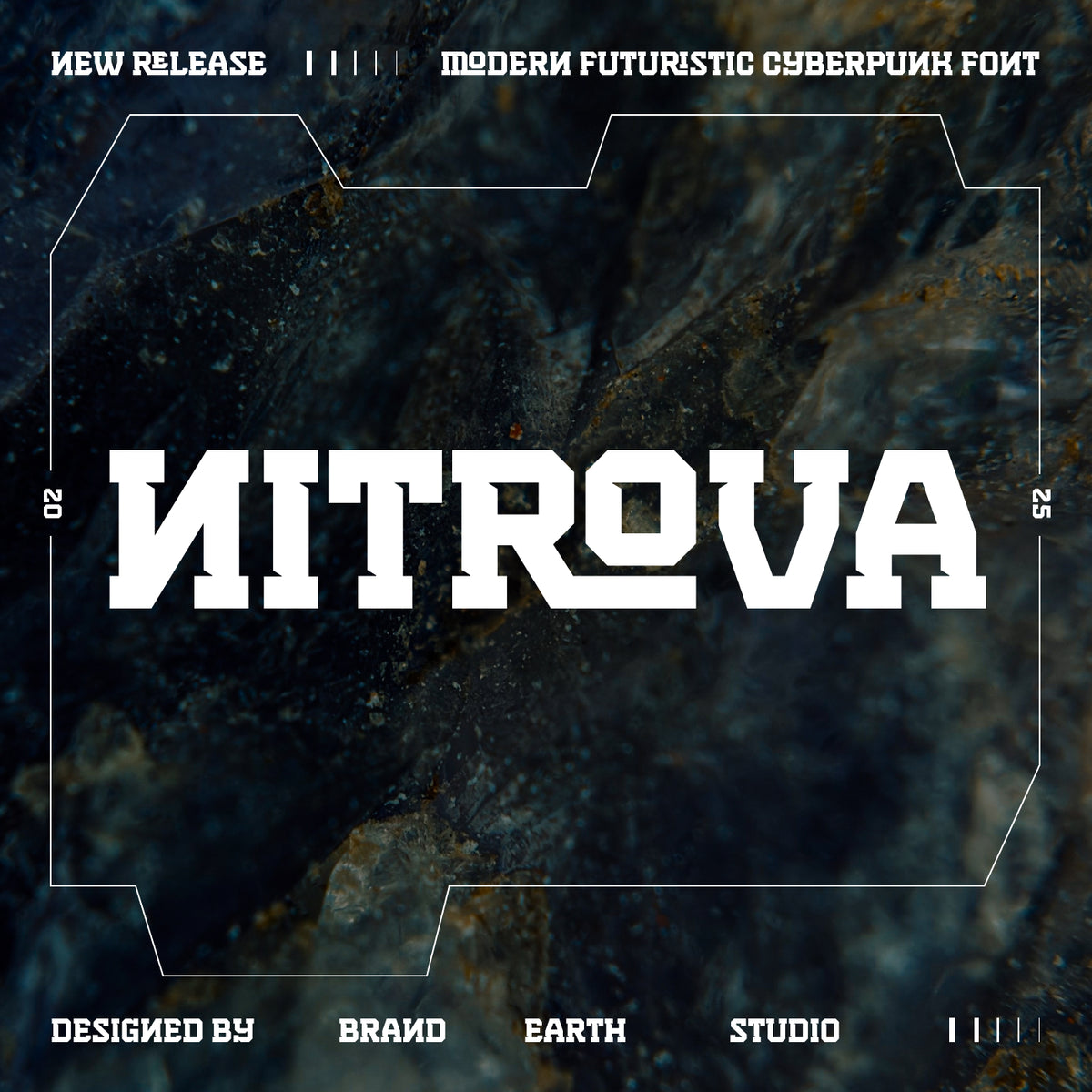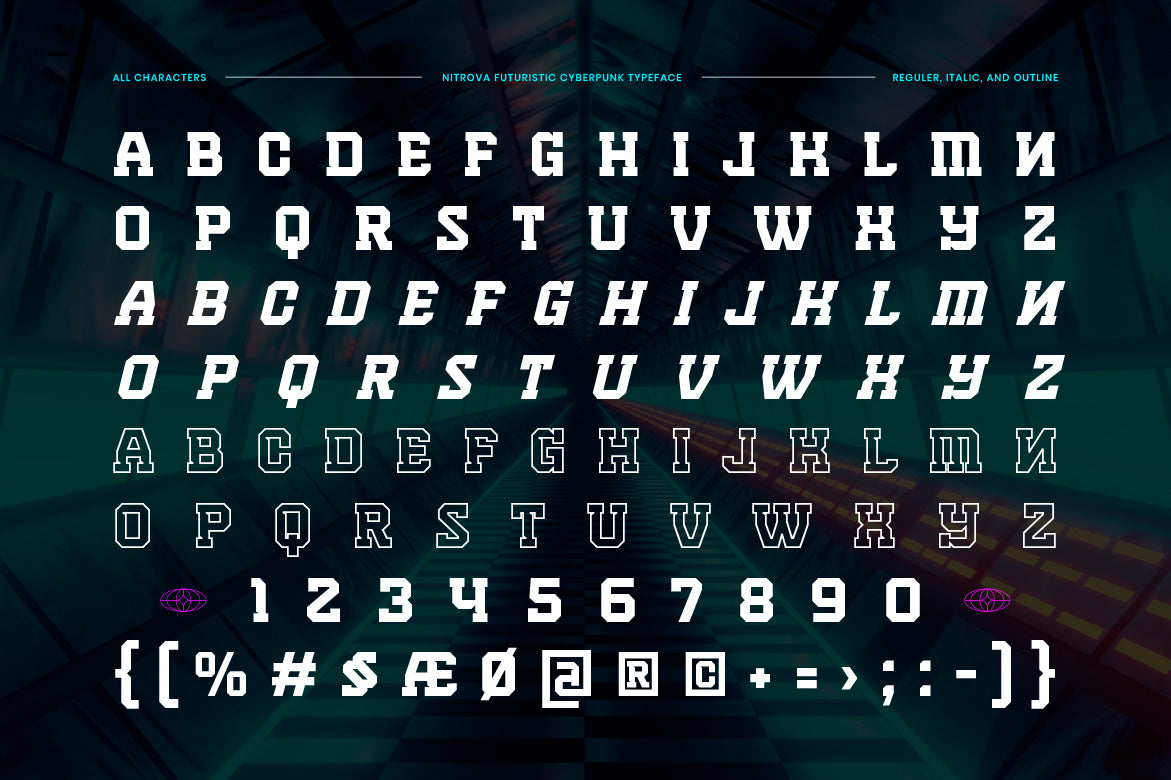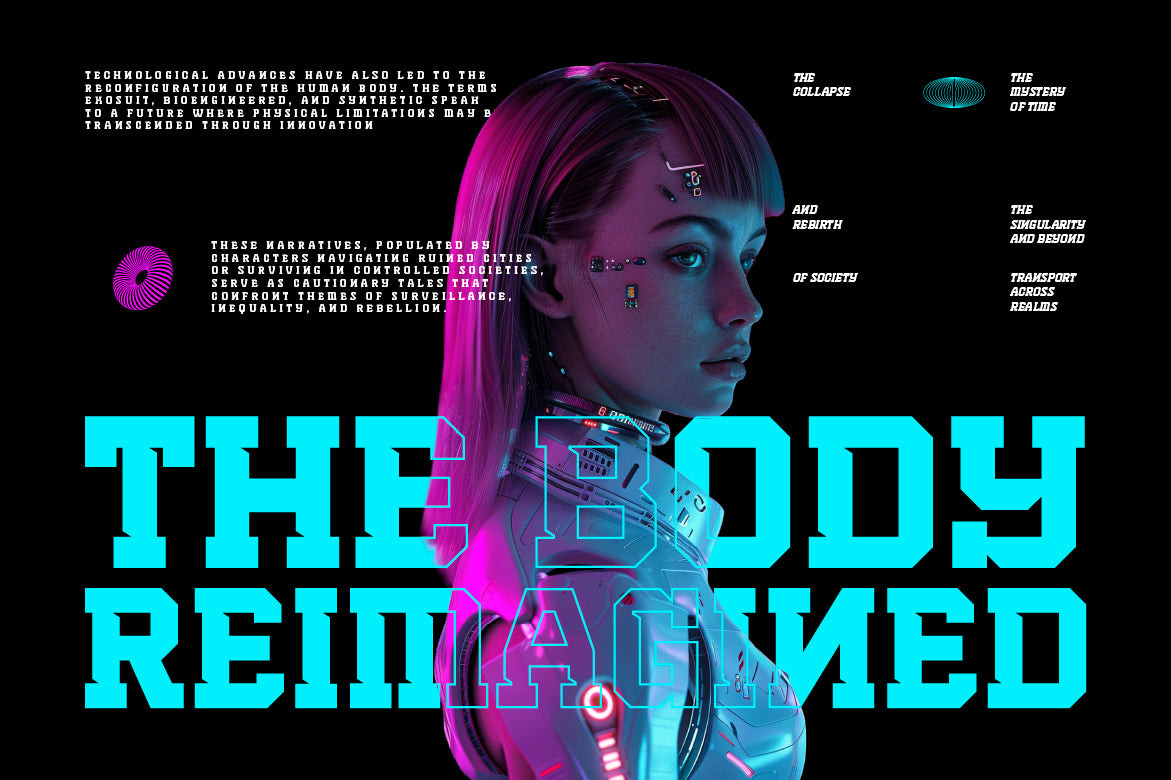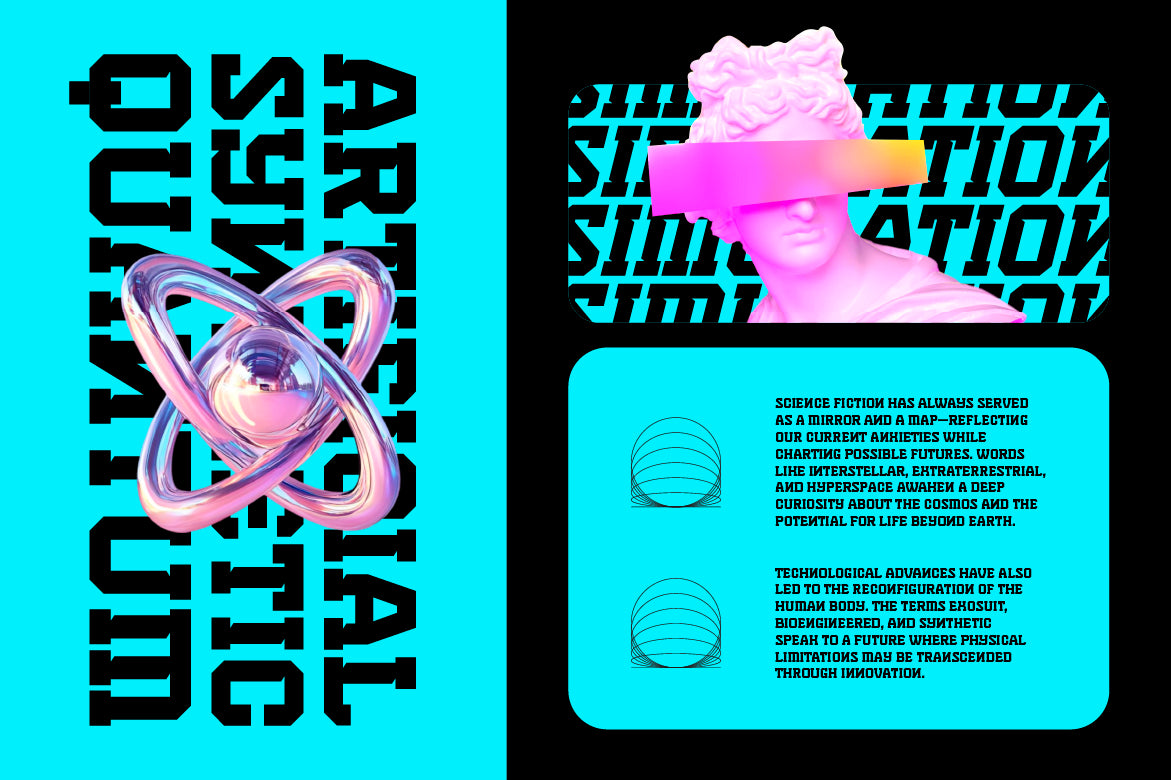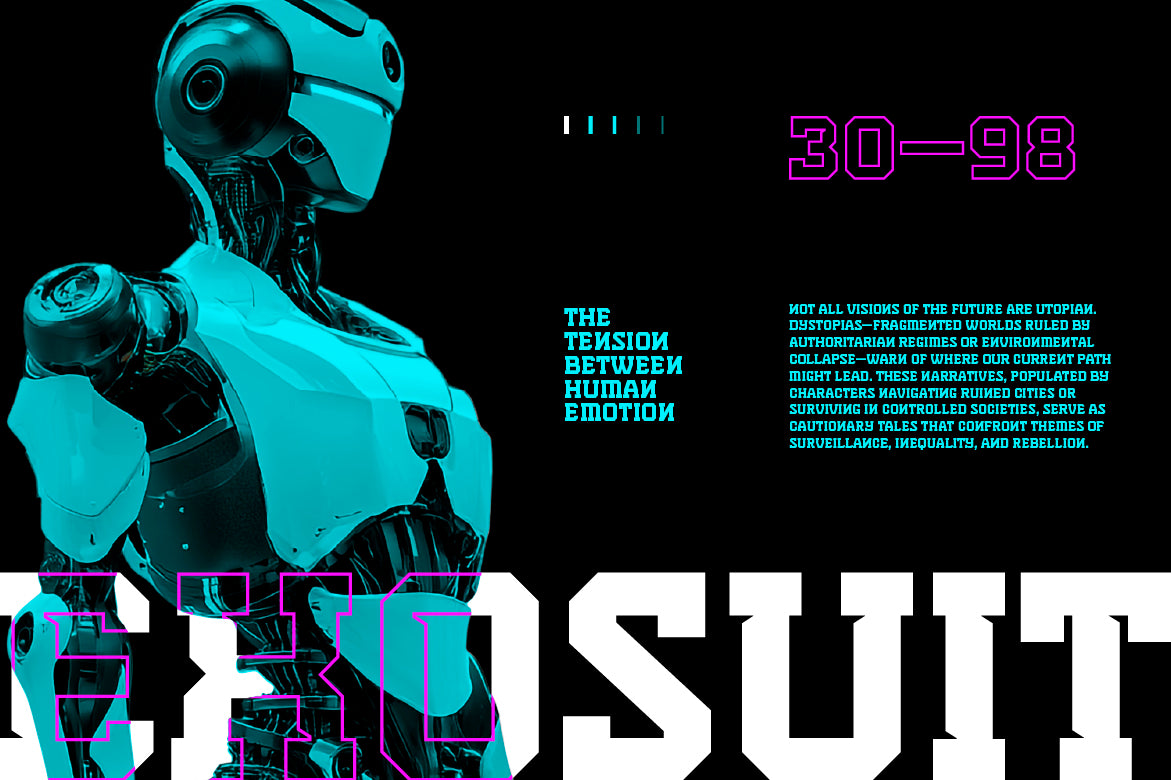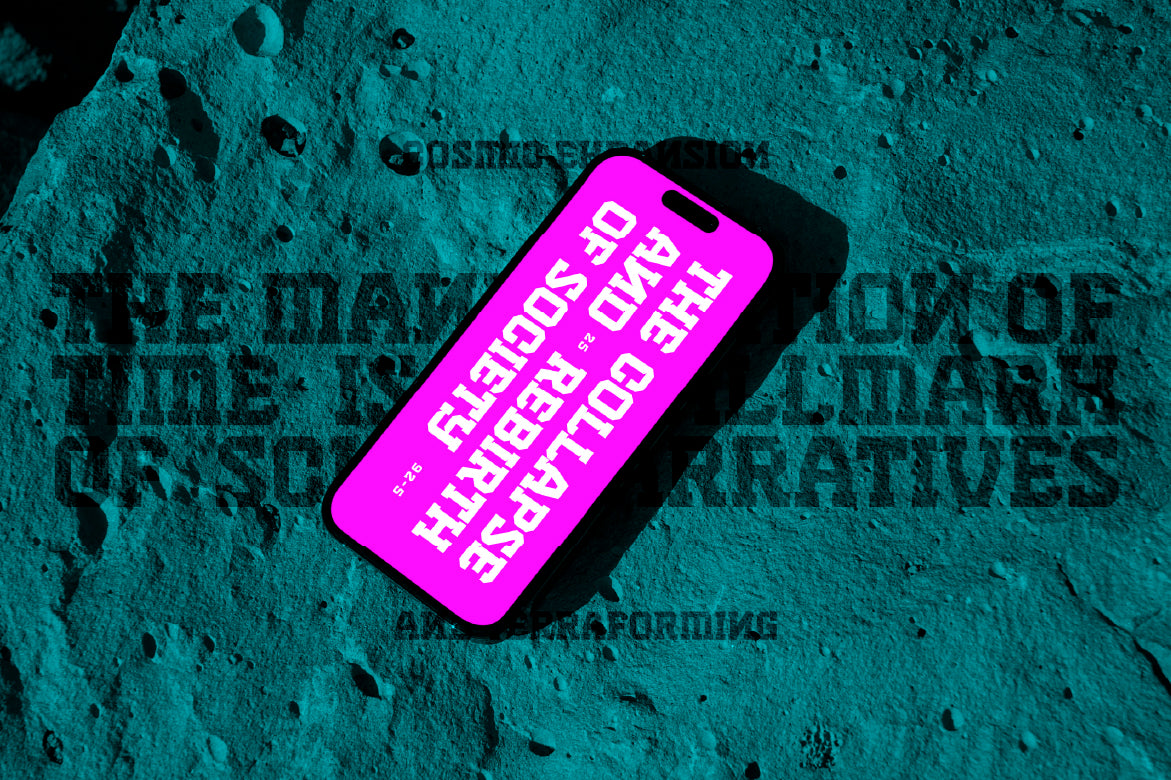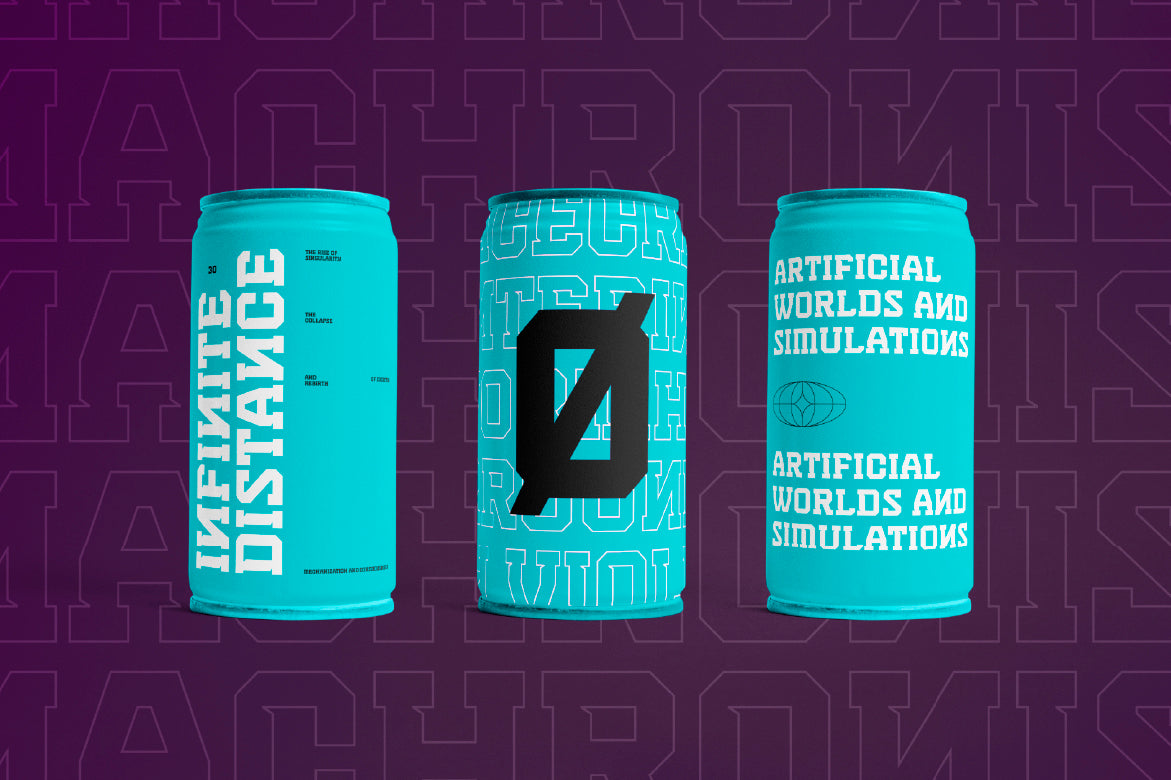
Nitrova Modern Futuristic Cyberpunk Font
Nitrova is a bold futuristic cyberpunk typeface with strong geometric structure and industrial edge. Designed with sharp cuts, angular details, and powerful weight, it brings a modern sci-fi aesthetic perfect for high-impact visuals. The font includes Regular, Italic, and Outline styles, making it versatile for posters, esports branding, automotive designs, and digital worlds. With its mix of cyberpunk energy and retro-tech flair, Nitrova is well-suited for racing graphics, futuristic logos, gaming titles, and technology-driven projects. The all-caps style amplifies intensity while maintaining readability, ensuring standout typography across both print and digital media.
Regular, Outline, & Italic Version
Nitrova is an all-caps futuristic typeface featuring Regular, Italic, and Outline styles with angular, geometric letterforms. It includes uppercase and lowercase characters, ligatures, alternates, numerals, and punctuation, available in TTF, OTF, and WOFF formats.